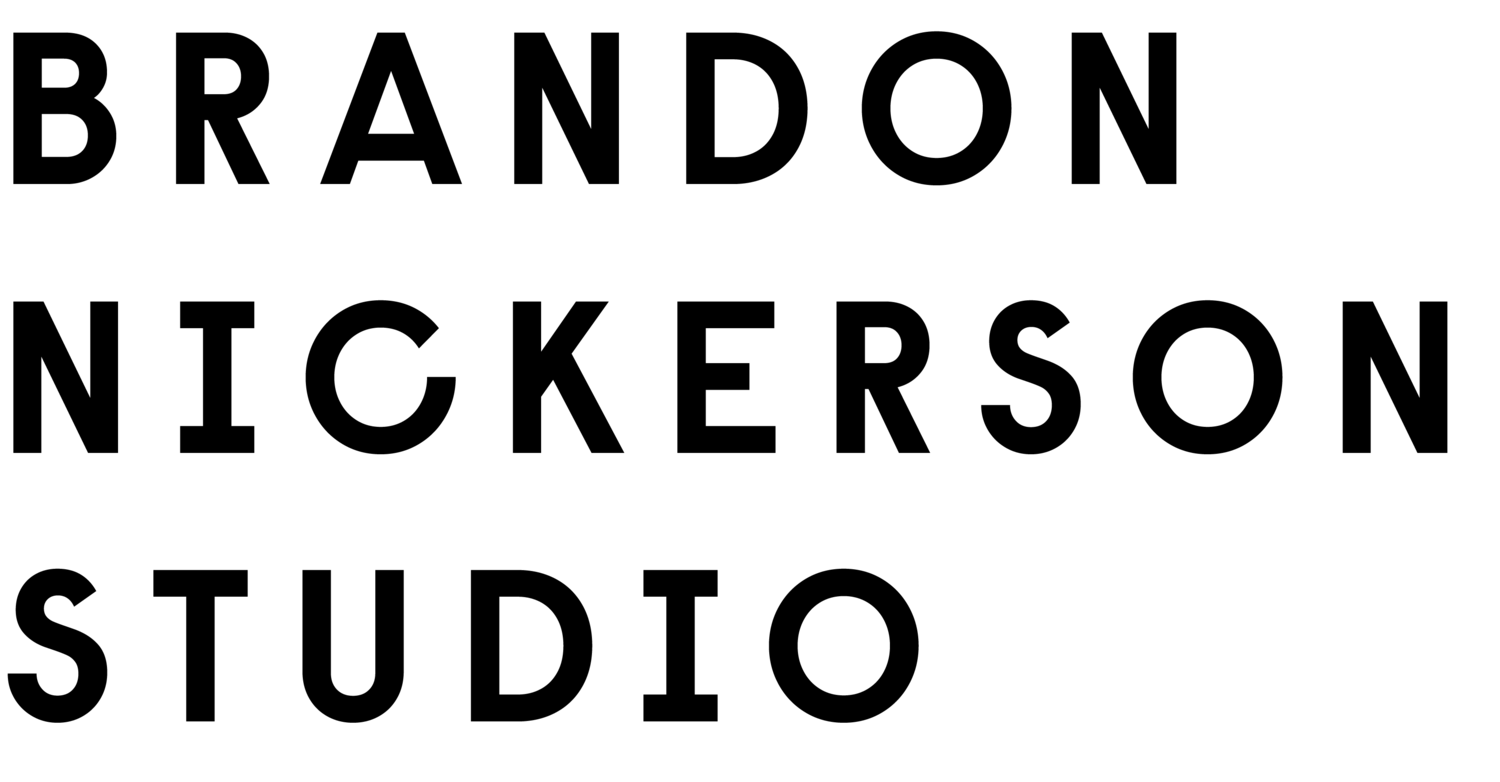
10 Budget-Friendly Typeface Resources for RPG Designers
Tired of using free fonts? Here are 10 foundries and type designers who make and sell quality typefaces and fonts for indie-level budgets.
The most affordable fonts are free.
If you have no budget for type, you can find plenty of great options that are 100% free. One might argue these free and open-source typefaces are overused, but with the right technique and pairings, even ubiquitous typefaces can feel fresh. So, before going any further, if you're strapped for cash, you should try open-source typefaces. Here's an article with some advice and curated favorites:
Tips for finding affordable typefaces:
- Limit yourself to only the type styles you need. Some type families cost as much as $1,200 to $3,000, but the fonts you need might cost less than $100.
- Don't be afraid to trial fonts. Some foundries offer trial versions for download, while many others have interactive type specimens on their website. Worst case scenario, you can always use screenshots to get a rough idea.
- Study the font licenses. You probably don't need every version. Web, app, and logo licenses in particular can be very expensive.
- Doublecheck for punctuation and multilingual support. The more affordable the fonts, the less likely they'll have these.
Here are 10 font foundries (and designers) who won't break the bank (maybe).
1. Pangram Foundry
Technically, you have to subscribe to their starter pack if you want to stay in budget, but the included fonts are well-made, full-kit, no nonsense type families. Over 70 of them. This foundry is packed with workhorse fonts.
Fonts: Experimental, mono, script, sans serif, and serif.
Functionality: Art, titles, headers, and body text
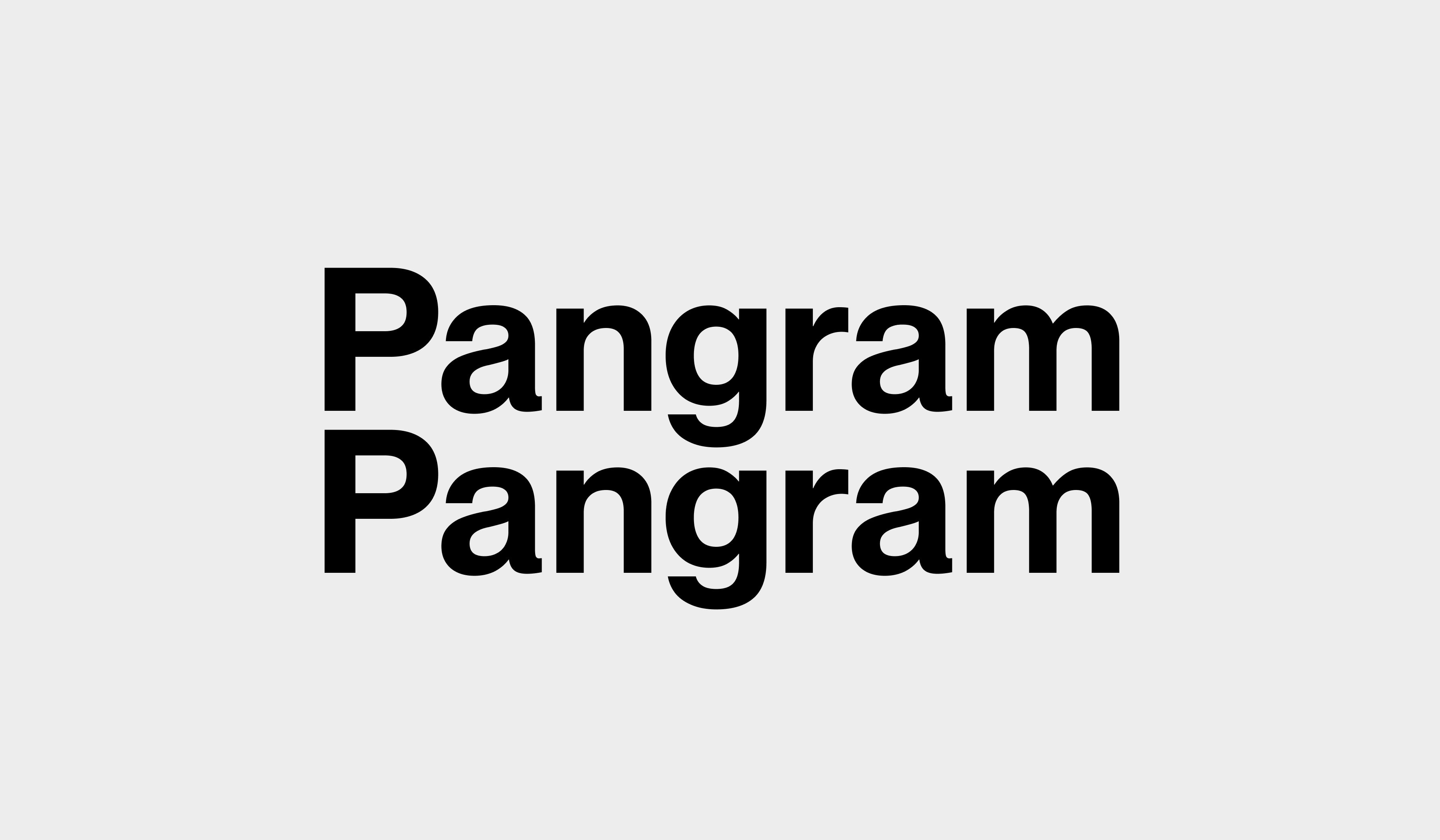
2. Type of Feeling
This boutique type foundry, founded by Jessica Walsh, has some super high-quality typefaces that punch way above their weight in price. They're on the higher end, closer to Pangram Pangram—but they sure pack a punch.
Fonts: Display, experimental, sans serif, and serif.
Functionality: Art, titles, and headers.
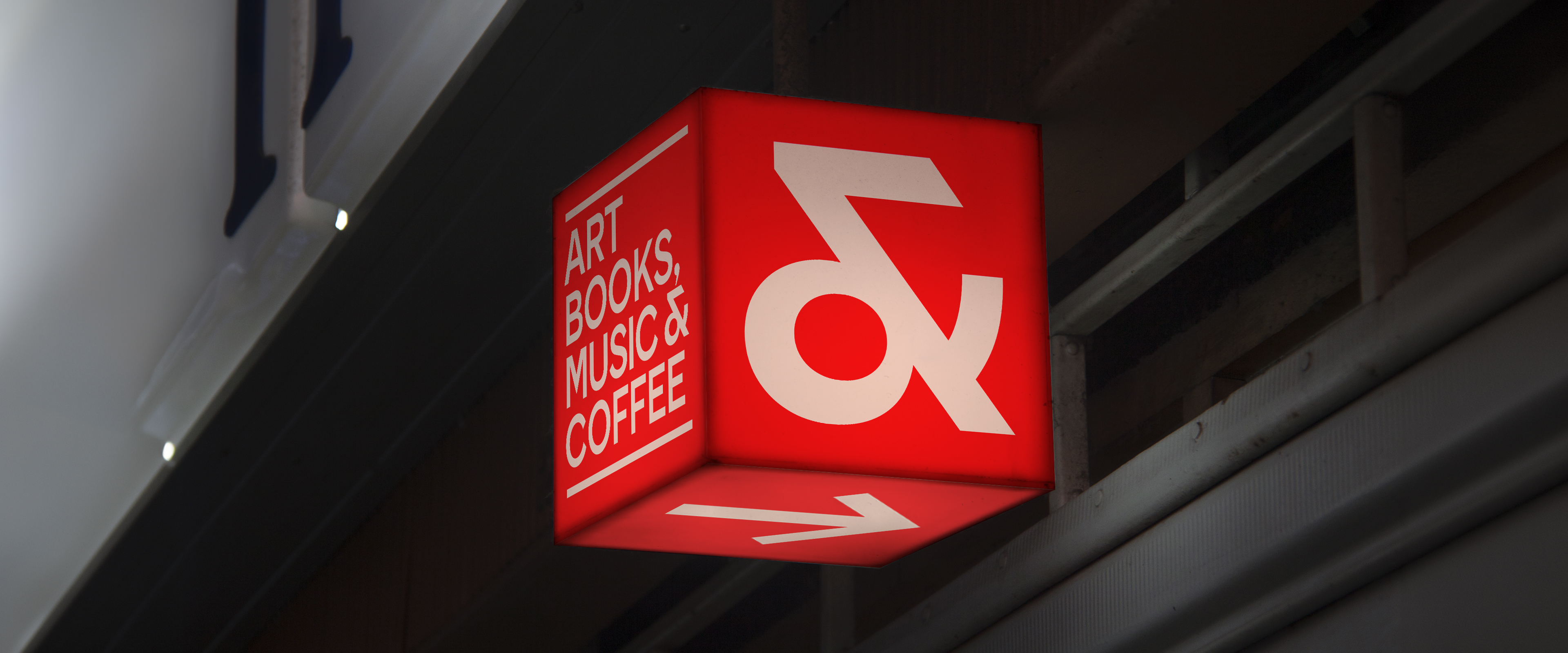
3. Central Type
Nothing about Central Type is subtle, which makes them the perfect fit for a cover, handout, or piece of art. I particularly like these typefaces because they can be the central figure of the cover, in other words, you might not need art.
Fonts: Display, sans serif, and serif.
Functionality: Art, titles, and (maybe) headers.
4. Atypical Type Foundry
Atypical is a type foundry with a small—but diverse—range of semi-affordable typefaces. (wait for sales), available in a variety of styles, weights and languages. This foundry is based out of Greece, which guarantees some needed glyphs.
Fonts: Display, sans serif, serif, and mono.
Functionality: Art, titles, headers, and (some) body text.
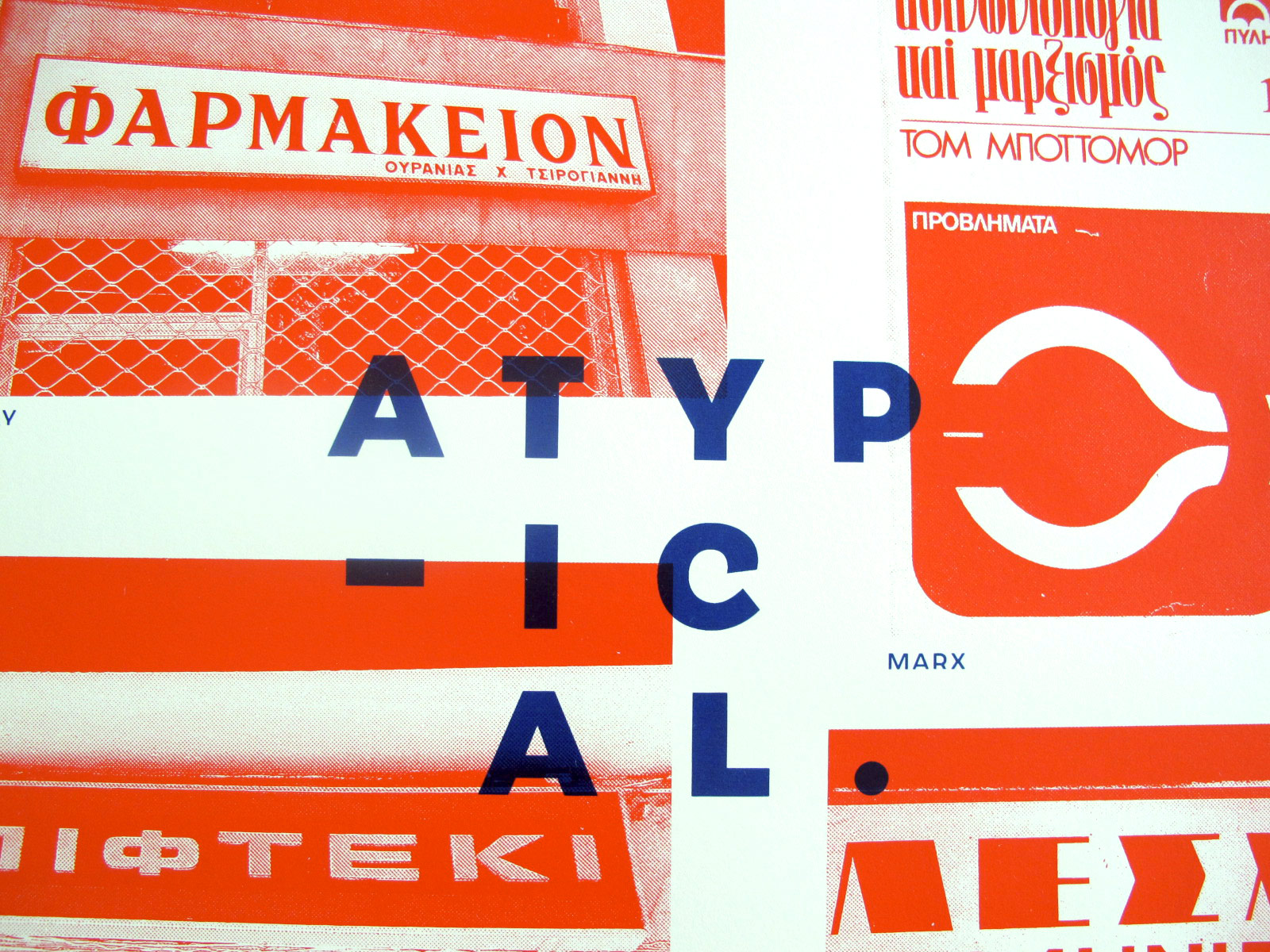
5. Pretend Foundry
The name is funny but the fonts are 100% real. And they're well-made! The range here is great, too. There's stuff here that feels modern, elegant, funky, and cute. Maybe it's the messaging about Animal Crossing, but I love it.
Fonts: Display, experimental, sans serif, serif, and mono.
Functionality: Art, titles, and headers.
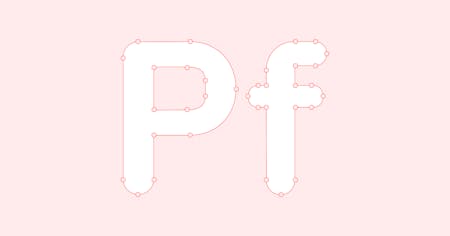
6. Silver Stag Type Foundry
If you love hand lettering, you'll love this one-person shop full of eclectic typefaces. They range from the rough and tumble stuff you'd see in a sandwich shop to the fancy stuff on a wine bottle. In other words, typefaces full of character.
Fonts: Display, experimental, handwritten, sans serif, and serif.
Functionality: Art and titles.
7. Future Fonts
Fresh fonts from a curated list of designers. The catch here is that the fonts are new, newer than new, actually—they're not done. Future Fonts is where designers share early versions of their work. Buy the early version and get free updates.
Fonts: Varies. Lots of experimental and handwritten.
Functionality: Varies. Some display and header opportunities.
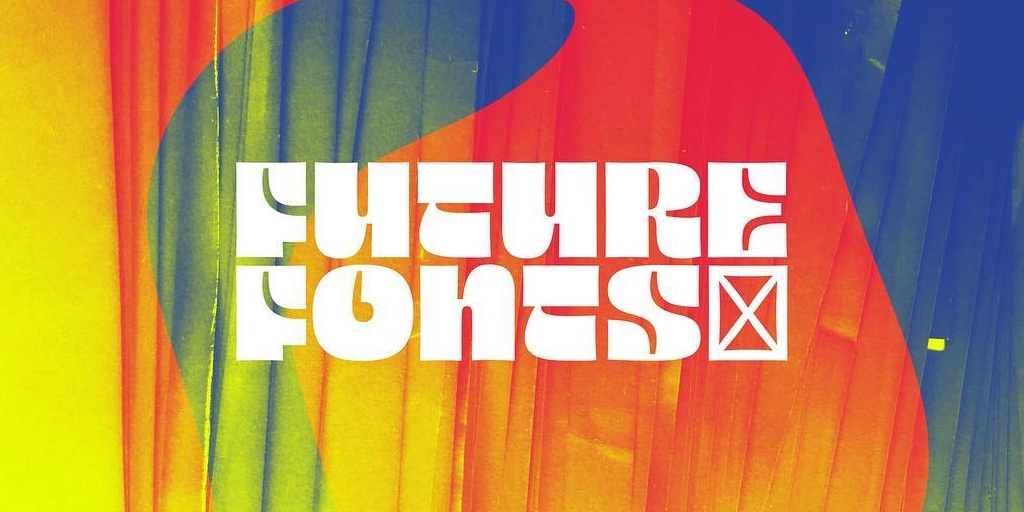
8. Simple Bits
This tiny design studio based out of Salem, Massachusetts produces awesome little typefaces, books, and merchandise. Many are reminiscent of old hand-painted signage, like the kind you would see outside a grocery store.
Fonts: Blackletter, display, handwritten, sans serif, and serif.
Functionality: Art and titles.
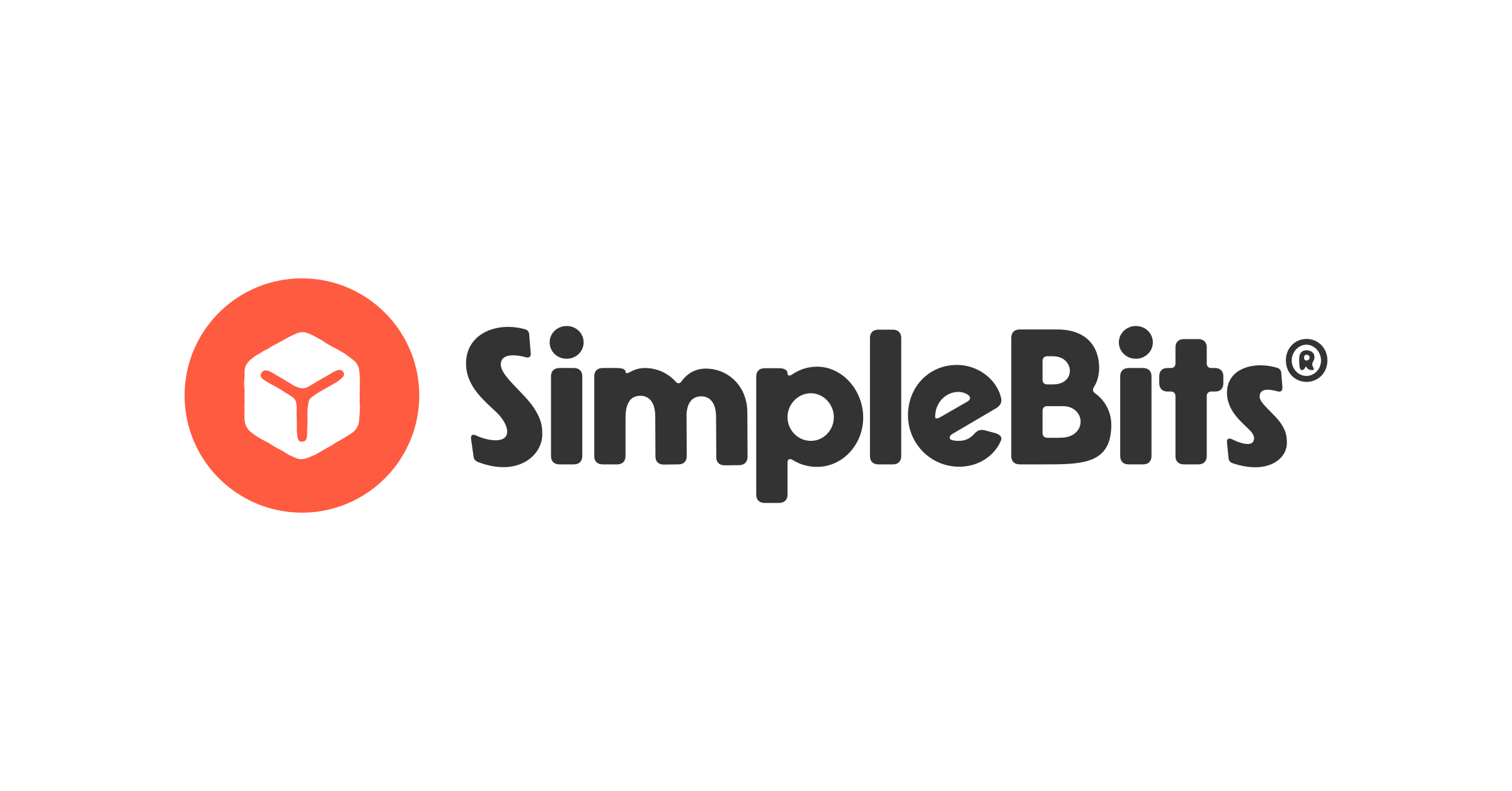
9. Brandon Nickerson
There's a good chance you already know this one. Brandon Nickerson has designed a lot of fonts over the years, all of them perfectly imperfect, with clear signs they were made by hand. Sign up for his newsletter for the occasional free font.
Functionality: Art, titles, and (maybe) headers.